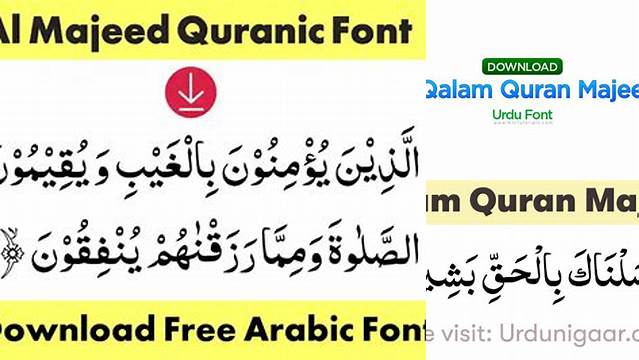
The Beauty of Al Quran Majeed Font
Hey guys, let's dive into the gorgeous world of Al Quran Majeed font! If you're looking to add a touch of elegance and divine beauty to your Islamic calligraphy, digital designs, or any project related to the Holy Quran, then you've come to the right place. The Al Quran Majeed font is specifically designed to emulate the beautiful, flowing script found in traditional Quran manuscripts. Its intricate details and graceful curves make it a popular choice for designers, scholars, and anyone wanting to showcase the sanctity of the Quranic text. When we talk about downloading this font for free, it opens up a world of creative possibilities without any financial barriers. Imagine creating stunning digital flyers for Ramadan, beautiful invitations for Islamic events, or even personal projects that express your devotion. The aesthetic appeal of this font is undeniable; itâs not just about readability, but about capturing the spiritual essence and historical significance of the Quran. Many designers find that using a font like Al Quran Majeed elevates their work from ordinary to extraordinary, lending it a sense of authenticity and reverence. The careful strokes and proportions are often inspired by generations of calligraphers, ensuring that each letter carries a weight of tradition and artistry. So, whether youâre a seasoned graphic designer or a beginner exploring the possibilities of digital art, this font offers a fantastic way to enhance your projects with a visually pleasing and spiritually resonant typeface.
Why Choose Al Quran Majeed Font?
So, why should you pick the Al Quran Majeed font for your next project, you ask? Well, itâs all about capturing that authentic, beautiful Arabic script thatâs instantly recognizable and deeply respected. Unlike generic Arabic fonts, Al Quran Majeed is often crafted with a keen eye for the specific nuances of Quranic calligraphy. This means you get letters that flow harmoniously, ligatures that connect seamlessly, and an overall aesthetic that feels traditional and reverent. For anyone working on Islamic websites, apps, books, or even social media content, having a font that truly represents the beauty of the Quran is crucial. It adds a layer of professionalism and sincerity to your work. Plus, when you can get it as a free download, itâs a win-win situation! You get high-quality typography without the hefty price tag. Think about the impact it has on your audience â seeing the Quranic verses rendered in a font that feels both ancient and modern, classic yet accessible. Itâs about more than just words; itâs about conveying respect and beauty. Many users appreciate that this font is optimized for digital use, ensuring clarity and legibility across various screen sizes and resolutions. This makes it a versatile tool for a wide range of applications, from large-format print designs to small, intricate digital layouts. The choice of font significantly influences the perception of your message, and Al Quran Majeed font certainly speaks volumes about the importance and beauty of the text it displays. Itâs a bridge between the digital age and the rich heritage of Islamic art.
Using Al Quran Majeed Font in Design Projects
Now for the fun part, guys: actually using that Al Quran Majeed font free download in your creative projects! This font is incredibly versatile, perfect for a wide array of applications. Think about designing flyers or posters for mosque events, Ramadan greetings, or Eid celebrations. The font brings an immediate sense of tradition and reverence thatâs hard to match. For websites or blogs focused on Islamic content, using Al Quran Majeed font for titles, quotes, or important verses can significantly enhance the user experience and visual appeal. It adds a professional and authentic touch that resonates with the audience. Graphic designers can incorporate it into logos, branding materials for Islamic organizations, or even digital art pieces. Imagine creating intricate Arabic patterns or borders using the fontâs beautiful letterforms. Itâs also fantastic for personal use, like designing custom Quran covers, decorative wall art, or personalized gifts with Quranic verses. When working with Arabic fonts, remember to pay attention to text direction and justification to ensure optimal readability. Experiment with different sizes and weights (if available) to find the perfect balance for your design. Don't be afraid to combine it with other complementary fonts for body text to create a visually engaging composition. The key is to let the beauty of the Al Quran Majeed font shine while ensuring your message is clear and impactful. This font truly helps bridge the gap between modern design tools and the timeless artistry of Islamic calligraphy, making your creations both beautiful and meaningful.
Typography and Readability with Al Quran Majeed Font
When we talk about typography, especially with scripts like Arabic, readability is king, even with beautiful fonts like the Al Quran Majeed font. The primary goal of any font, especially one used for sacred texts, is to be clear and easy to understand. Thankfully, many versions of the Al Quran Majeed font are designed with this in mind. They aim to balance the aesthetic elegance of traditional calligraphy with the practical demands of modern digital display. This means that while the letters might be stylized and ornate, they usually retain clear forms that are distinguishable. When you download and use this font, pay attention to how it renders at different sizes. Some intricate fonts might become less legible when shrunk down too small, so itâs worth testing it out. For headings or large display text, the Al Quran Majeed font can truly shine, showcasing its full decorative potential. For longer passages of text, like in a digital Quran or an informational article, you might consider pairing it with a simpler, more neutral Arabic font to ensure maximum readability. However, many designers successfully use Al Quran Majeed font for entire passages by carefully adjusting font size, line spacing (leading), and paragraph spacing. The flowing nature of the script can actually create a very pleasing reading experience when implemented correctly. Itâs all about finding that sweet spot where artistic beauty meets functional clarity. So, while exploring the free download options, look for versions that emphasize clean lines and distinct letterforms alongside their ornamental qualities. This ensures your message, whether it's a verse from the Quran or an important announcement, is conveyed effectively and beautifully.
Exploring Variations of Al Quran Majeed Font
When you're on the hunt for that perfect Al Quran Majeed font free download, you might stumble upon several variations. This is awesome because it means designers have put in extra effort to offer different styles that cater to various needs and aesthetic preferences. Some variations might be very traditional, closely mimicking the exact style of ancient Quranic manuscripts, complete with intricate diacritics (tashkeel) and ligatures. These are fantastic for projects that demand a high degree of historical accuracy and authenticity. Other variations might be more modernized, taking the core essence of the Al Quran Majeed style but simplifying some of the more complex flourishes for better readability on screens or for a cleaner, contemporary look. You might also find fonts that focus on specific aspects, like perhaps emphasizing the bold strokes for headlines or offering a lighter weight for body text. Some versions might include a wider range of characters or stylistic alternates, giving you more flexibility in your designs. When you download, take a moment to explore these different versions. See which one best fits the mood and purpose of your project. Do you need something deeply traditional, or is a slightly more modern interpretation what youâre after? Understanding these variations helps you make a more informed choice and unlocks even more creative potential. Itâs like having a whole family of related fonts, all stemming from the same beautiful inspiration, ready to be used in your projects. So, don't just grab the first one you see; browse around and find the variation that truly speaks to you and your design vision!
Alternatives to Al Quran Majeed Font
While the Al Quran Majeed font is undoubtedly beautiful and widely used, sometimes you might want to explore other options or perhaps find an alternative if you can't locate a suitable free download. The world of Arabic fonts is vast and rich, offering numerous styles that can capture the essence of Islamic calligraphy. Consider exploring fonts like Amiri, which is a popular, versatile typeface designed for body text in Arabic. It's known for its excellent readability and classic feel. Another great option is Scheherazade, designed specifically for setting classical Arabic text and renowned for its readability and calligraphic qualities. If you're looking for something with a distinct, elegant flair, perhaps check out traditional Thuluth or Naskh style fonts â many calligraphers and foundries offer digital versions of these classic scripts. Some might be paid, but often there are free interpretations available. Websites like Google Fonts offer a curated selection of high-quality Arabic fonts that are free for both personal and commercial use, which is a huge plus. When searching for alternatives, think about the specific feel you want to convey. Are you aiming for a formal, academic look, or something more decorative and artistic? Each font has its own personality and strengths. Exploring these alternatives not only broadens your font library but also ensures you find the perfect match for your project's unique requirements, ensuring your Islamic designs are both beautiful and effective, guys. Itâs always good to have options, right?
Final Thoughts on Al Quran Majeed Font Downloads